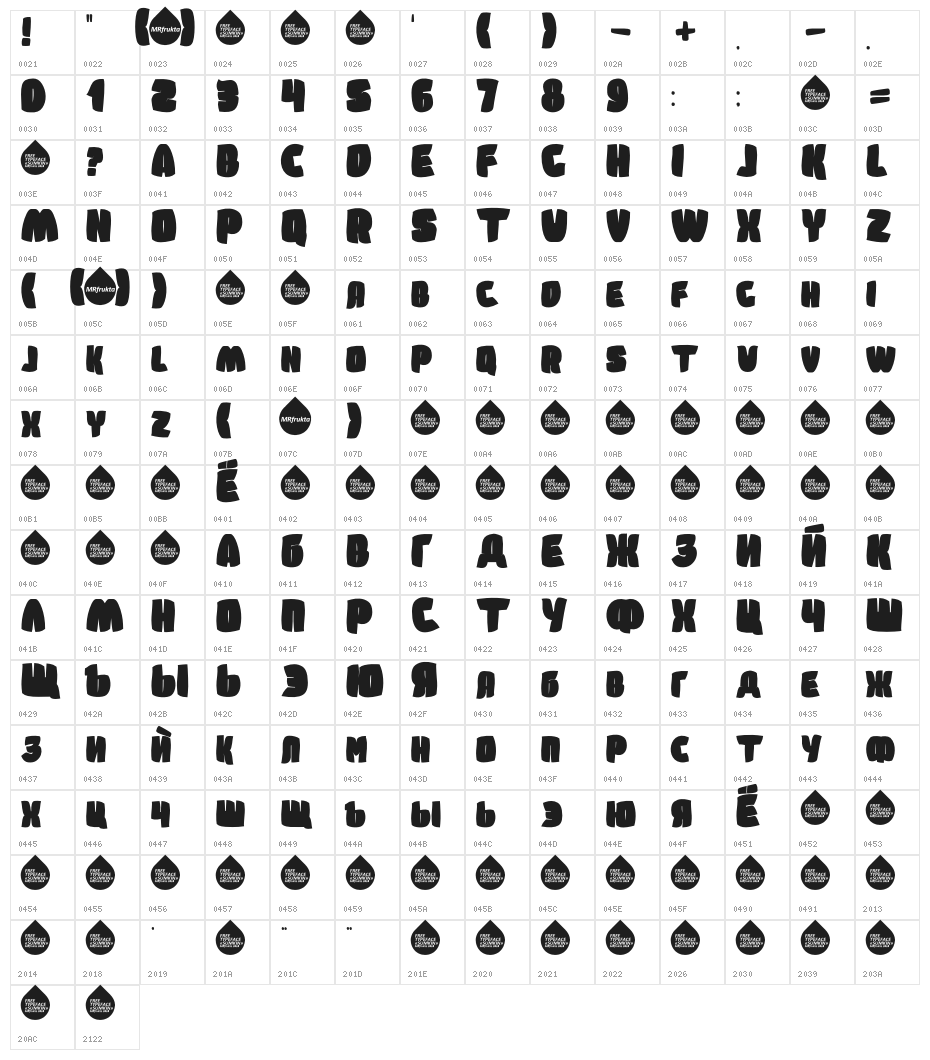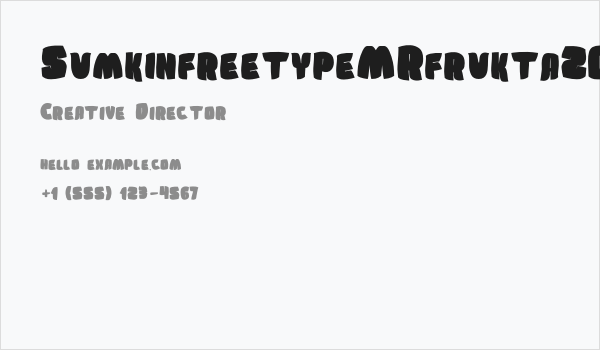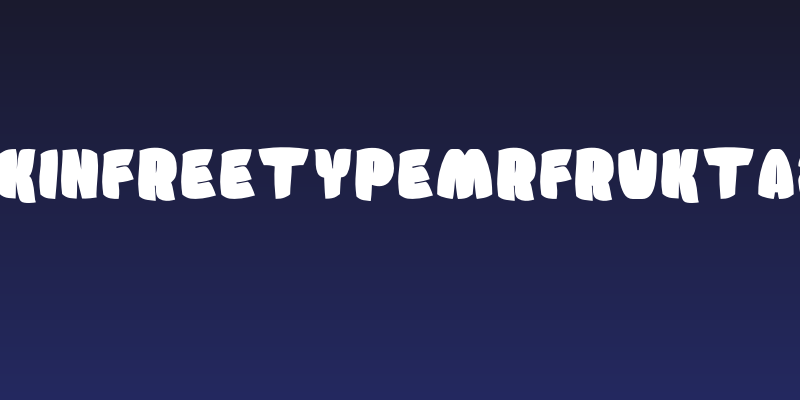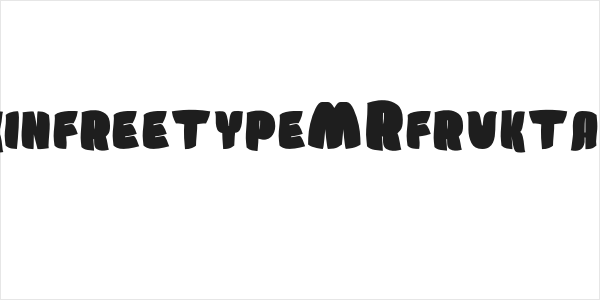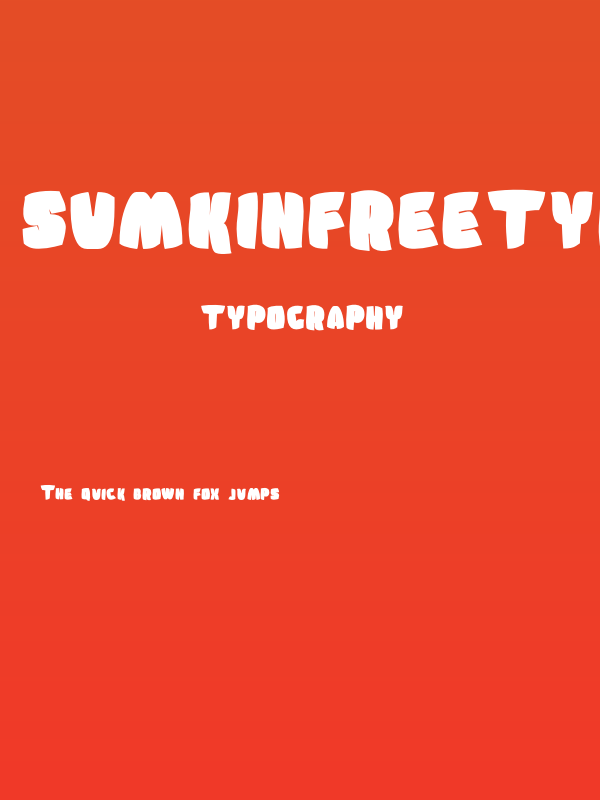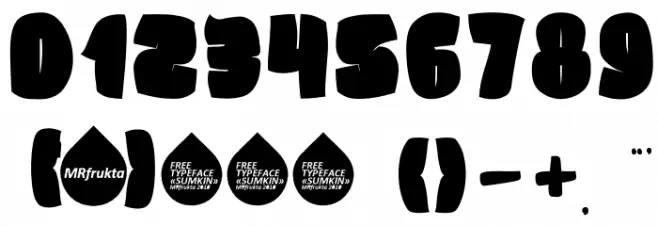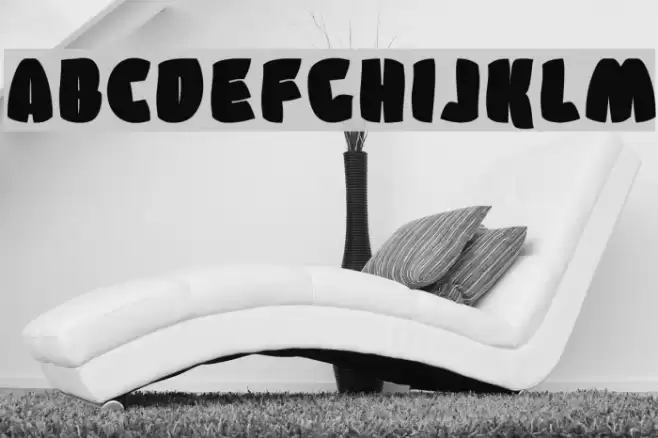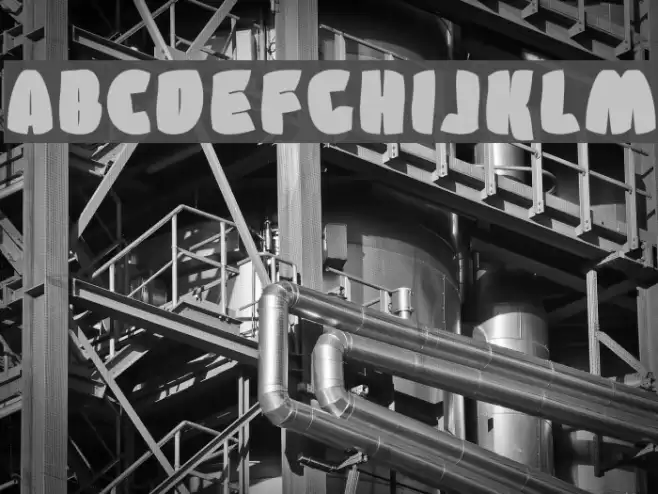
SumkinfreetypeMRfrukta2010 Font
SumkinfreetypeMRfrukta2010 Description
This font features bold, playful characters with a unique, chunky design. The letters are rounded and have a hand-drawn feel, giving them a whimsical and approachable appearance. The uppercase and lowercase letters maintain a consistent style, with exaggerated curves and a slightly uneven baseline that adds to the casual aesthetic. The numbers and special characters follow the same design principles, ensuring a cohesive look across all elements. This font's distinct style makes it stand out, making it ideal for projects that require a fun and engaging visual impact.
| Overall Style | Playful, Whimsical |
| Proposed Projects | Ideal for children's books, playful branding, posters, and creative advertising. |